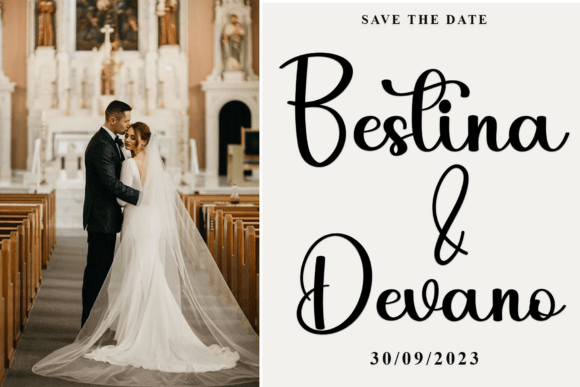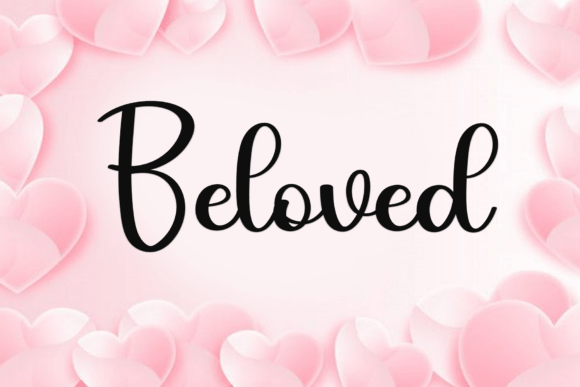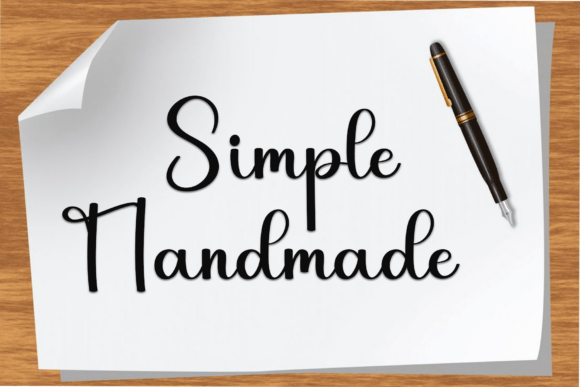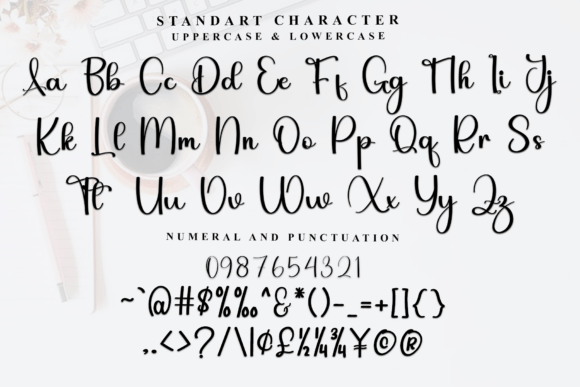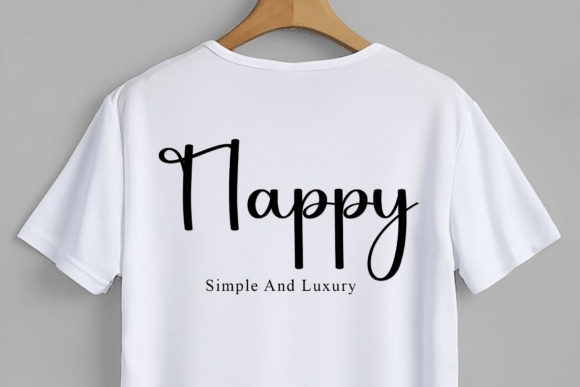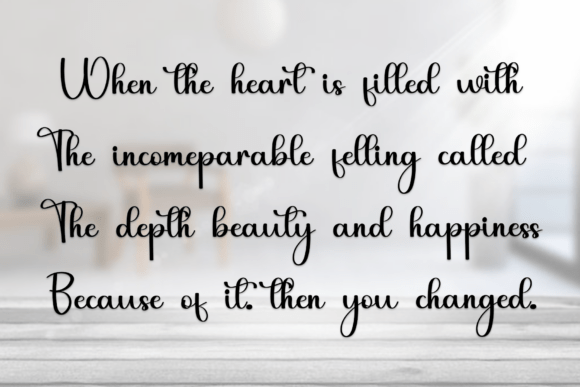
Bristney Font: A Timeless Handwritten Font for Stunning Designs
Are you a designer or crafter looking for a font that can add a touch of elegance and sophistication to your designs? Look no further than Bristney Font, a lovely and timeless handwritten font that is perfect for creating eye-catching logos, branding, and quotes.
What Makes Bristney Font So Special?
Bristney Font is a unique and beautiful font that is sure to make your designs come alive. Every letter has a distinctive and elegant touch that sets it apart from other fonts. The font is carefully crafted to provide a personal and intimate feel, making it perfect for designs that require a human touch.
Bristney Font is an excellent choice for creating stunning logos, branding, and quotes. The font’s elegant and cursive style makes it perfect for designs that require a touch of sophistication and elegance. Whether you’re creating a logo for a business, a quote for social media, or a brand identity for a product, Bristney Font is sure to impress.
Unique and Beautiful Touch
One of the standout features of Bristney Font is its unique and beautiful touch. Every letter is carefully crafted to provide a distinctive and elegant feel that is sure to make your designs stand out. The font’s unique touch is perfect for designs that require a personal and intimate feel, such as wedding invitations, greeting cards, and personalized gifts.
Why Choose Bristney Font?
There are many reasons why Bristney Font is an excellent choice for designers and crafters. Here are just a few:
- Timeless Design: Bristney Font has a timeless design that will never go out of style. The font’s elegant and cursive style makes it perfect for designs that require a touch of sophistication and elegance.
- Unique and Beautiful: Every letter in Bristney Font has a unique and beautiful touch that sets it apart from other fonts. The font’s distinctive style makes it perfect for designs that require a personal and intimate feel.
- Versatile: Bristney Font is a versatile font that can be used for a wide range of designs, from logos and branding to quotes and greeting cards.
- Easy to Read: Despite its elegant and cursive style, Bristney Font is easy to read, making it perfect for designs that require a clear and concise message.
How to Use Bristney Font
Using Bristney Font is easy. Here are just a few tips:
- Pair with Other Fonts: Bristney Font pairs well with other fonts, making it perfect for designs that require a combination of fonts.
- Use for Headings and Titles: Bristney Font is perfect for headings and titles, making it a great choice for designs that require a touch of elegance and sophistication.
- Add a Personal Touch: Bristney Font’s unique and beautiful touch makes it perfect for adding a personal touch to your designs.
In conclusion, Bristney Font is a lovely and timeless handwritten font that is perfect for creating eye-catching logos, branding, and quotes. The font’s unique and beautiful touch makes it stand out from other fonts, and its elegant and cursive style makes it perfect for designs that require a touch of sophistication and elegance. Whether you’re a designer or crafter, Bristney Font is an excellent choice for your next project.
Final Tips and Tricks
Here are a few final tips and tricks for using Bristney Font:
- Experiment with Different Sizes: Bristney Font looks great in a range of sizes, from small and delicate to large and bold.
- Play with Colors: Bristney Font pairs well with a range of colors, from bold and bright to soft and pastel.
- Add Texture and Patterns: Bristney Font looks great with texture and patterns, making it perfect for designs that require a tactile feel.